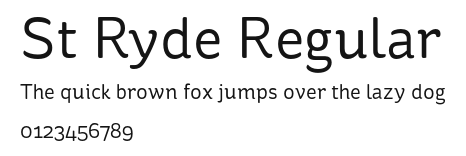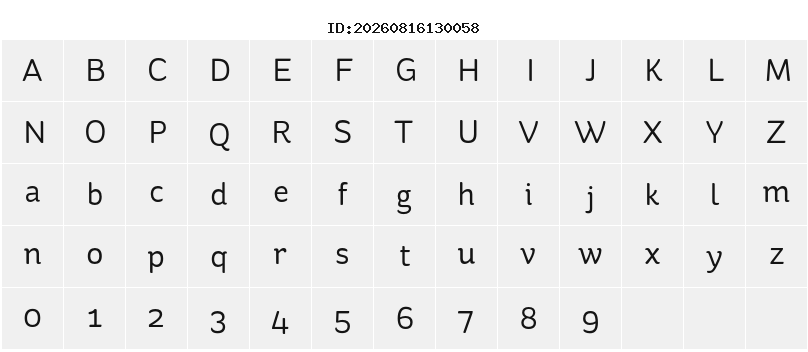
• Font Name: St Ryde Regular
• Designer: Sascha Timplan
• Manufacturer: Stereotypes.de
About St Ryde Regular.otf
St Ryde Regular.otf is a modern, elegant sans-serif font designed for ultimate readability and visual harmony. Perfect for branding, headlines, web design, and print materials.